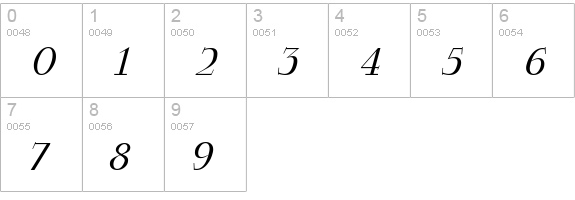
Euroika Italic is a distinctive, italic variant in the Euroika typeface family \xE2\x80\x94 well suited to design and typography projects.
Euroika Italic is a sophisticated and elegant typeface that exudes style and class. Its slanted design adds a touch of modernity and flair to any project, making it perfect for fashion magazines, luxury branding, and high-end product packaging. The flowing curves and sharp serifs give Euroika Italic a sense of grace and refinement, while still maintaining a contemporary edge. What sets Euroika Italic apart is not just its stunning aesthetics, but also the fact that it is available for free download at FontsMarket.com. This means that you can elevate your designs with this premium font without breaking the bank. Whether you're a professional graphic designer or a hobbyist looking to add a touch of sophistication to your creations, Euroika Italic is the perfect choice. Download it today and make your projects stand out with this exquisite and stylish typeface.